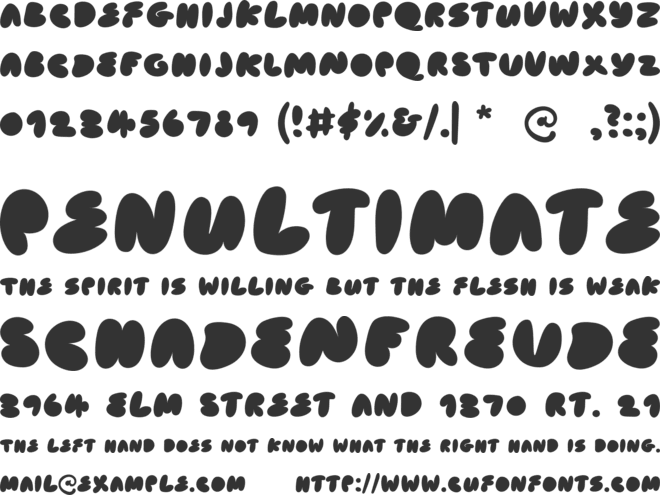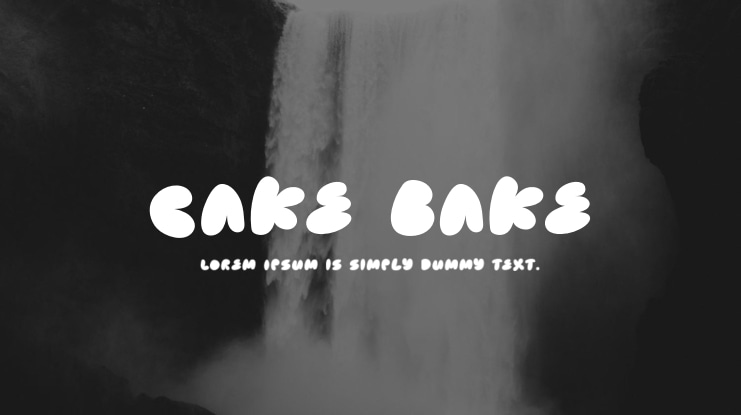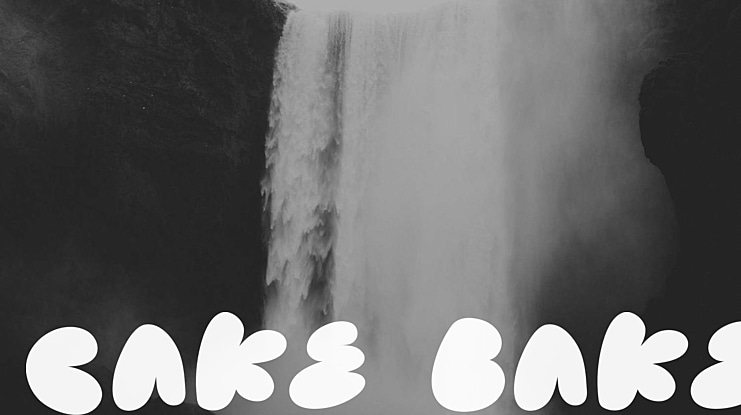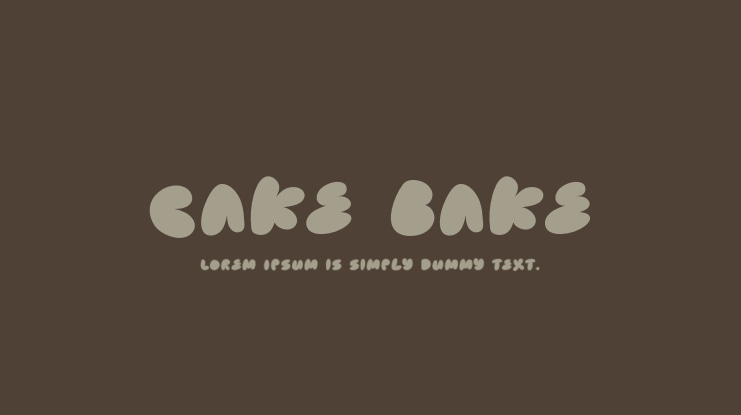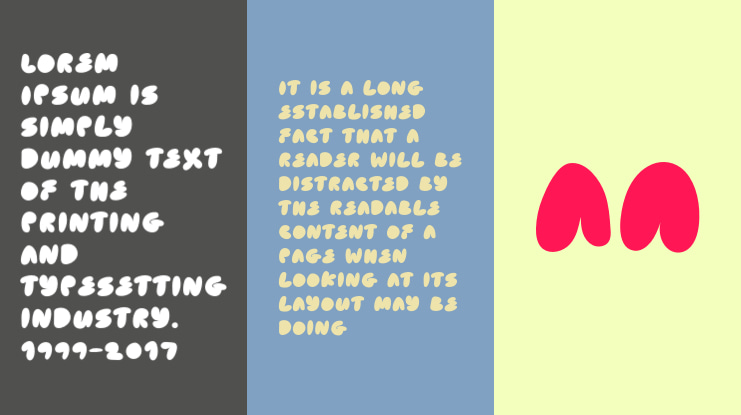
Cake Bake Font Family
Check out my latest display font - Cake Bake. It's a fun bubble font full of character, with 70's retro vibes. An all uppercase type (alternate uppers on the lowercase keys) hand drawn for a natural flow and feel.
Use this for logo, headings, book titles, quotes, whatever you want to add a splash cheeky fun-ness to.
For good measure, I added an outline version... you're welcome.